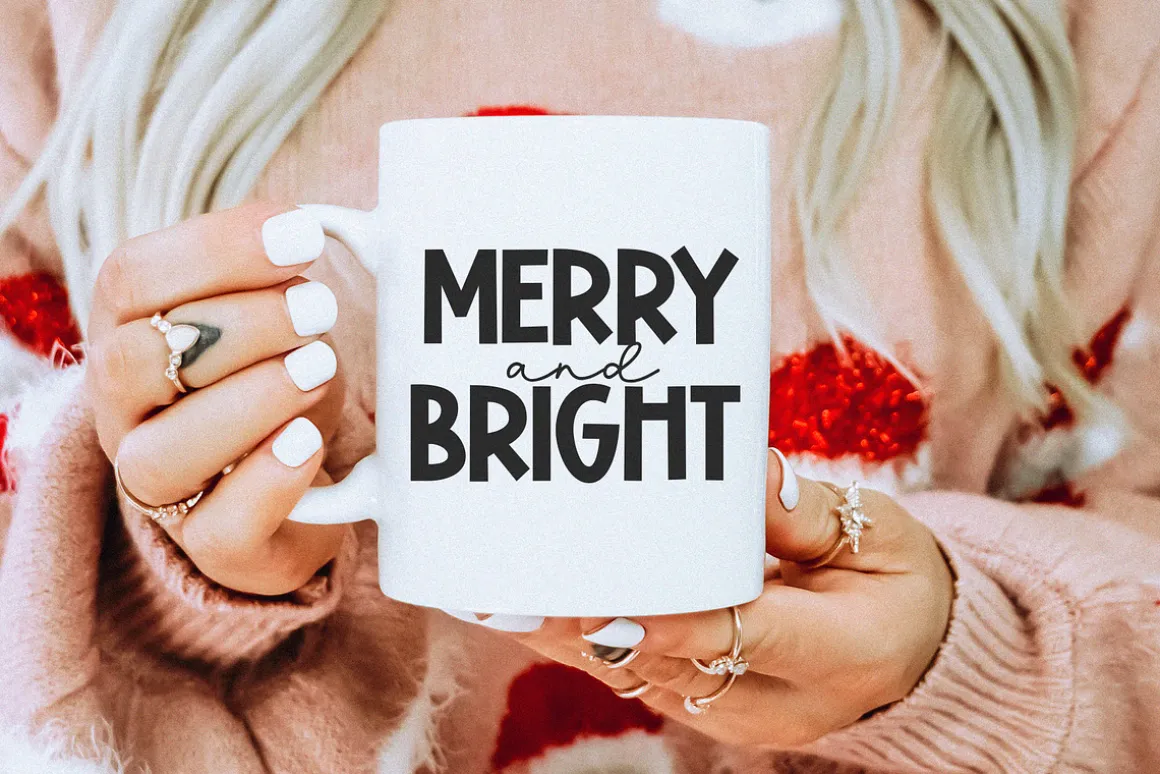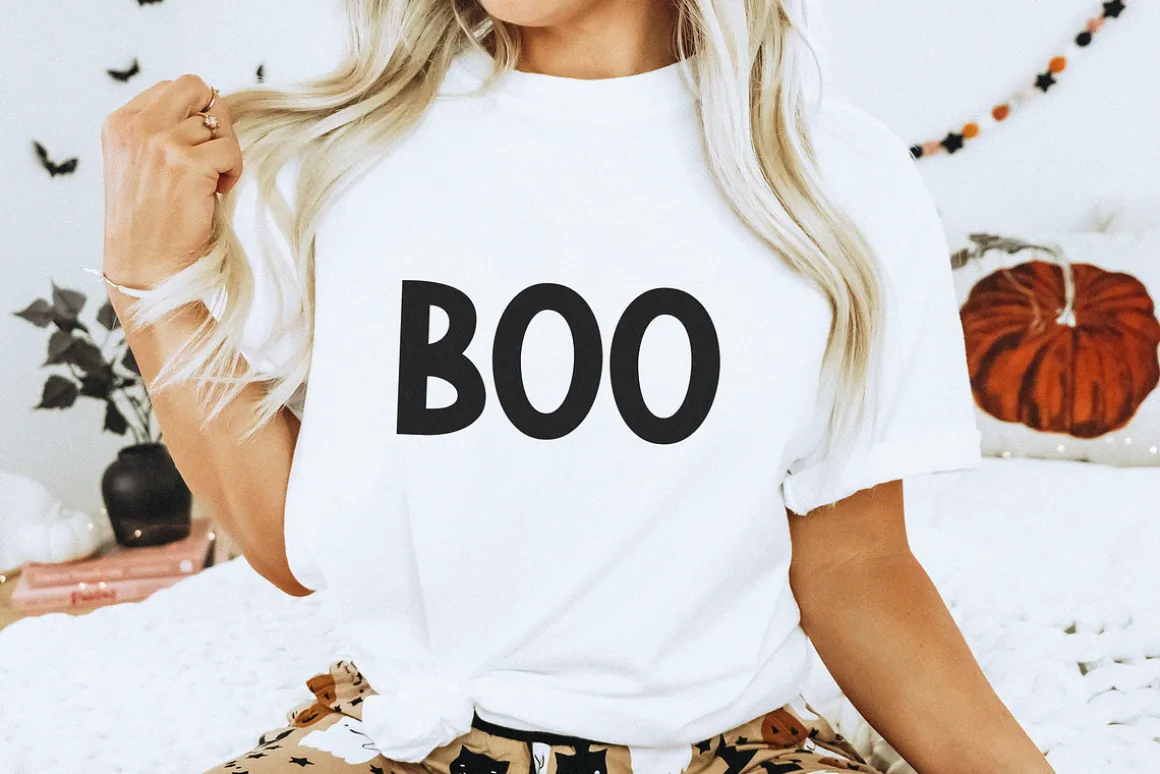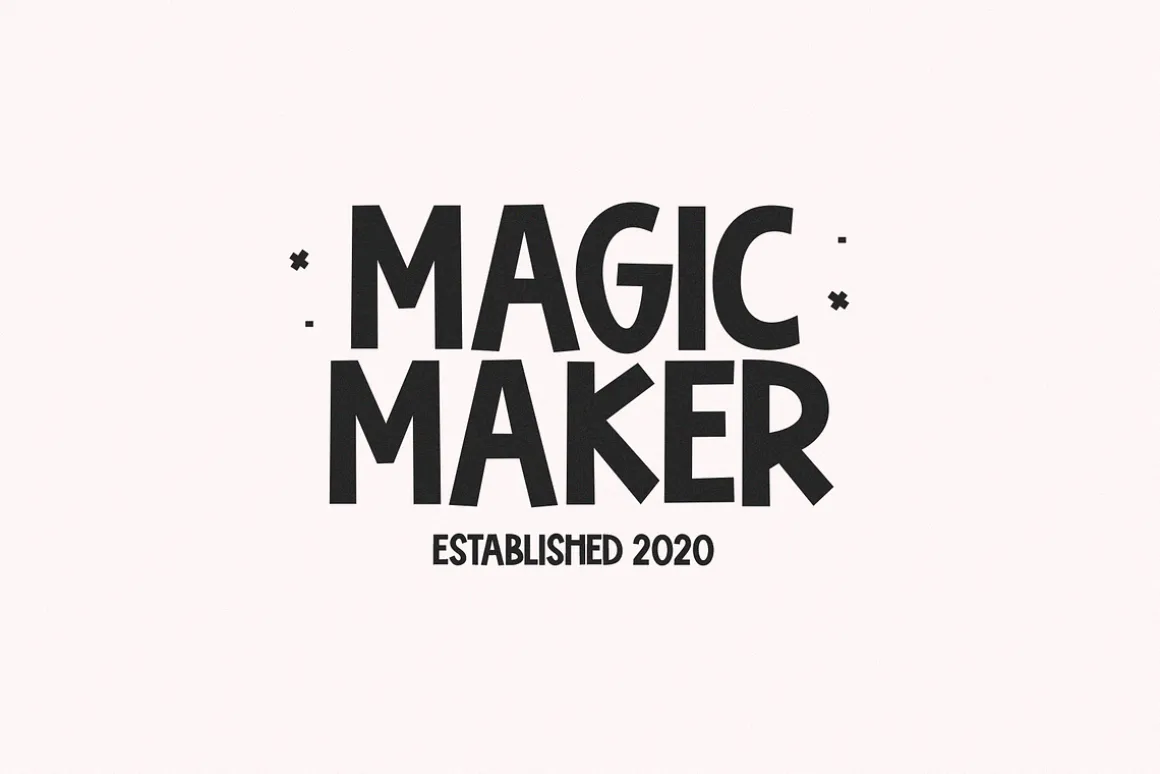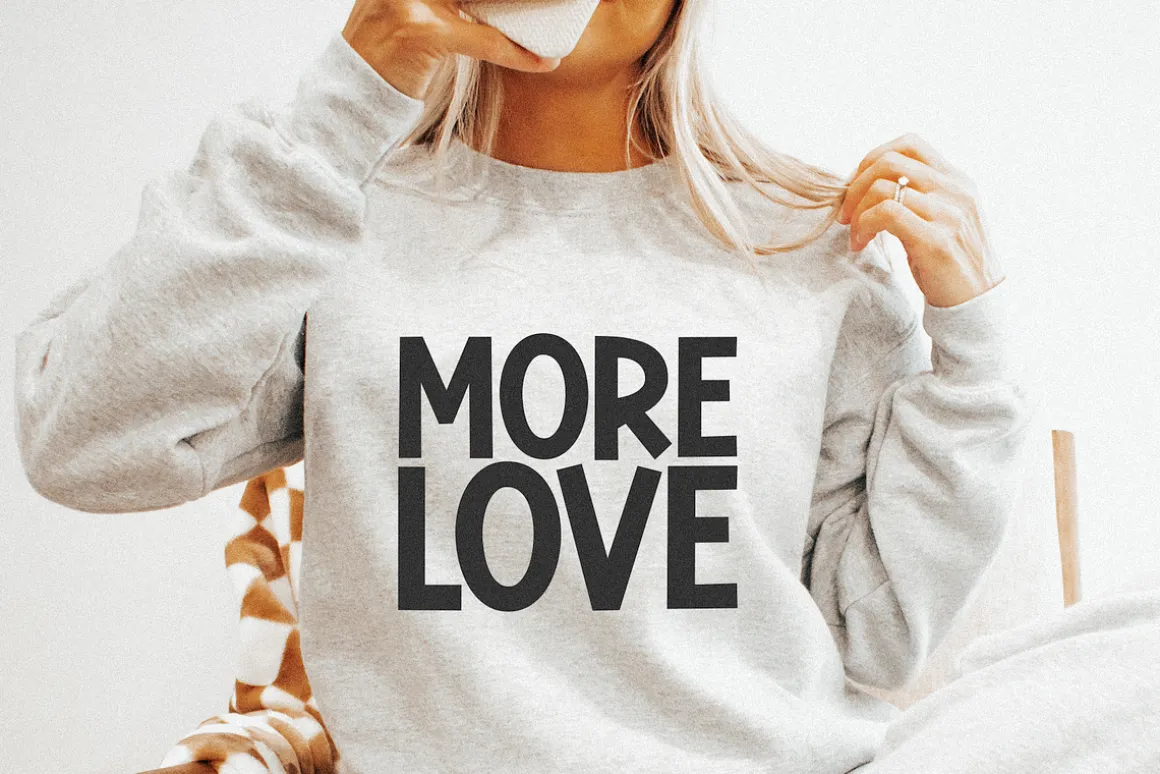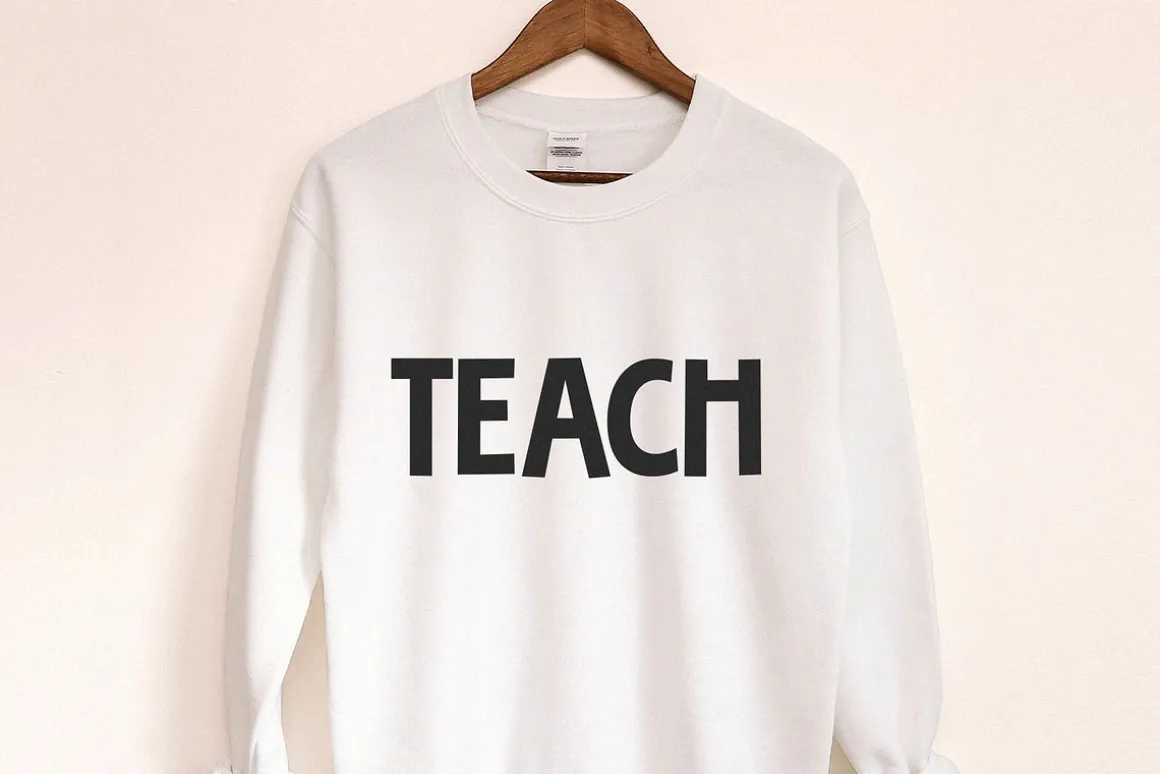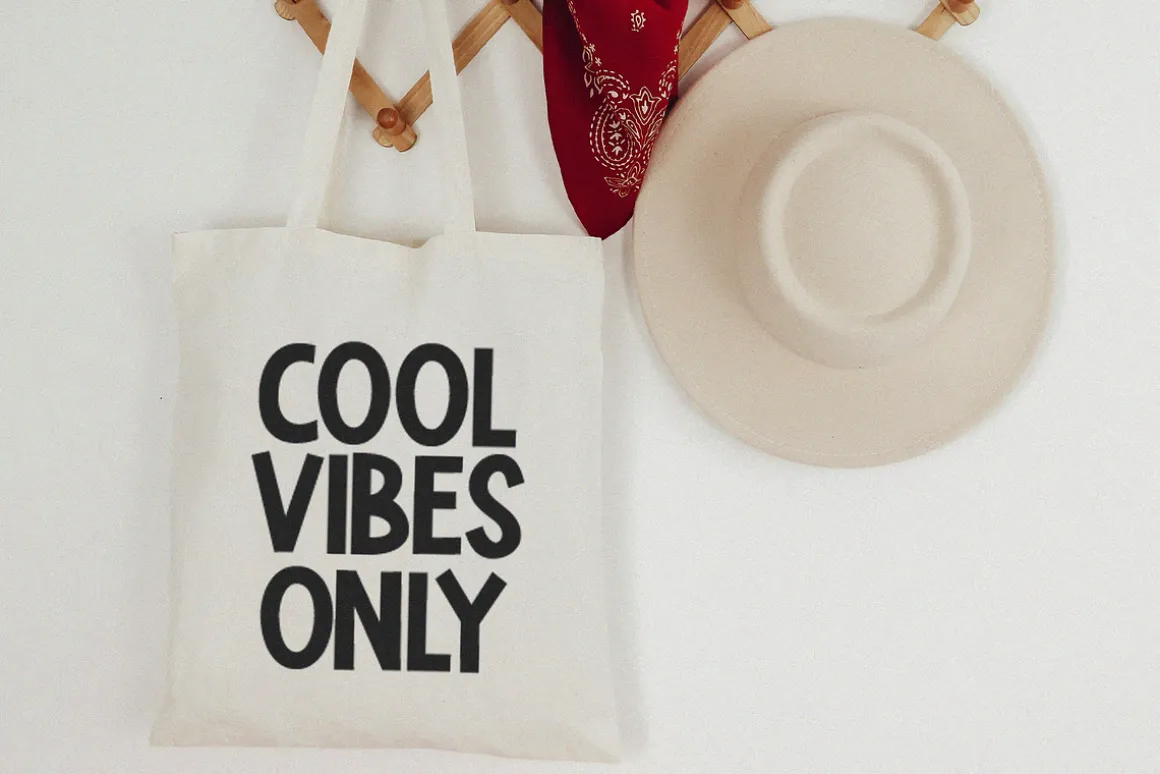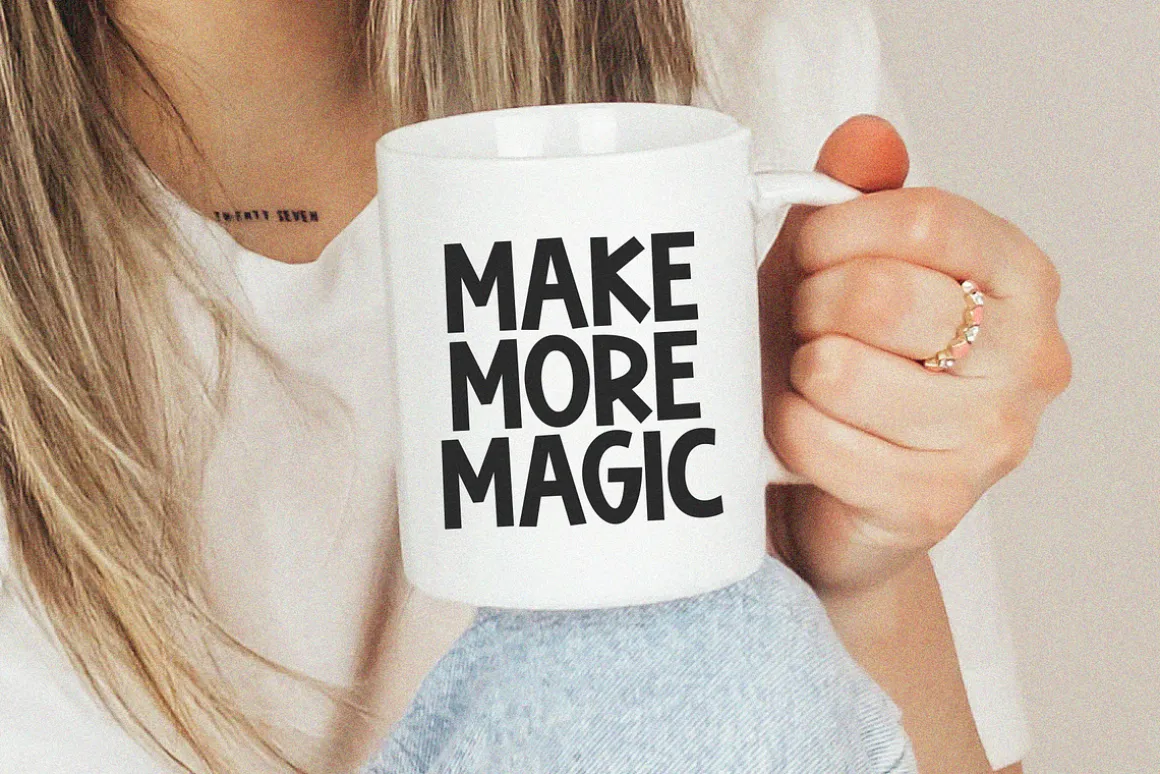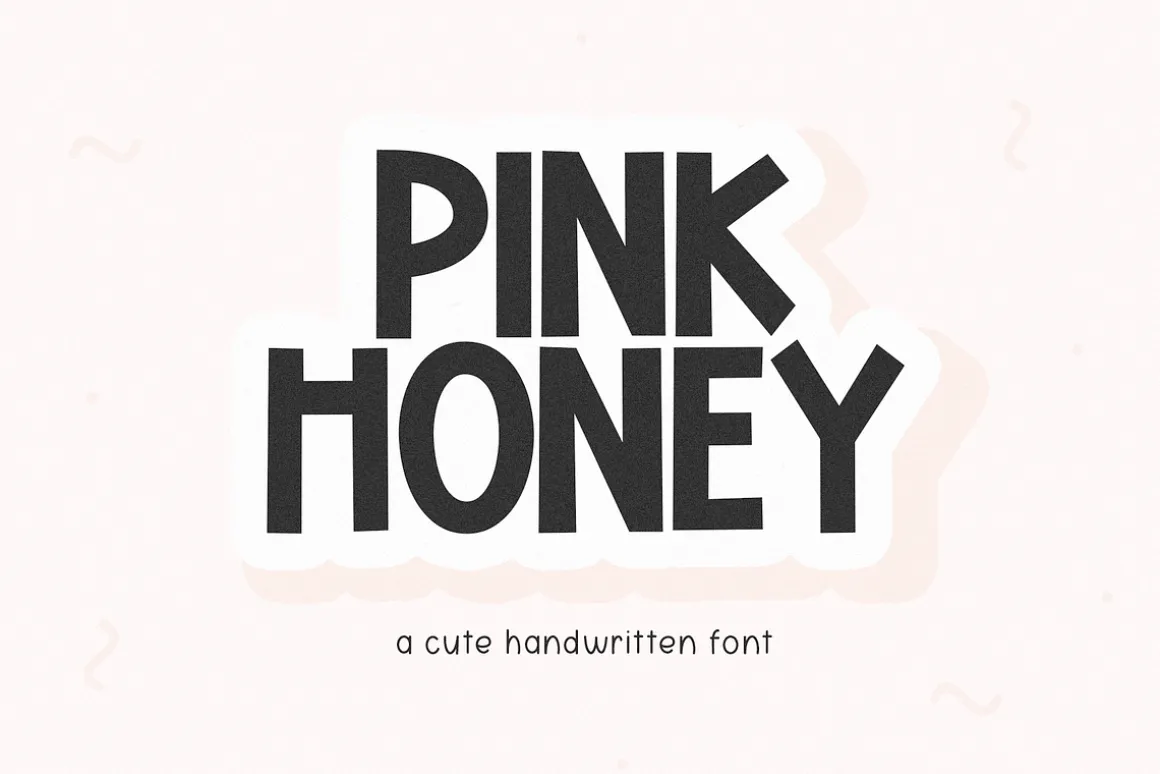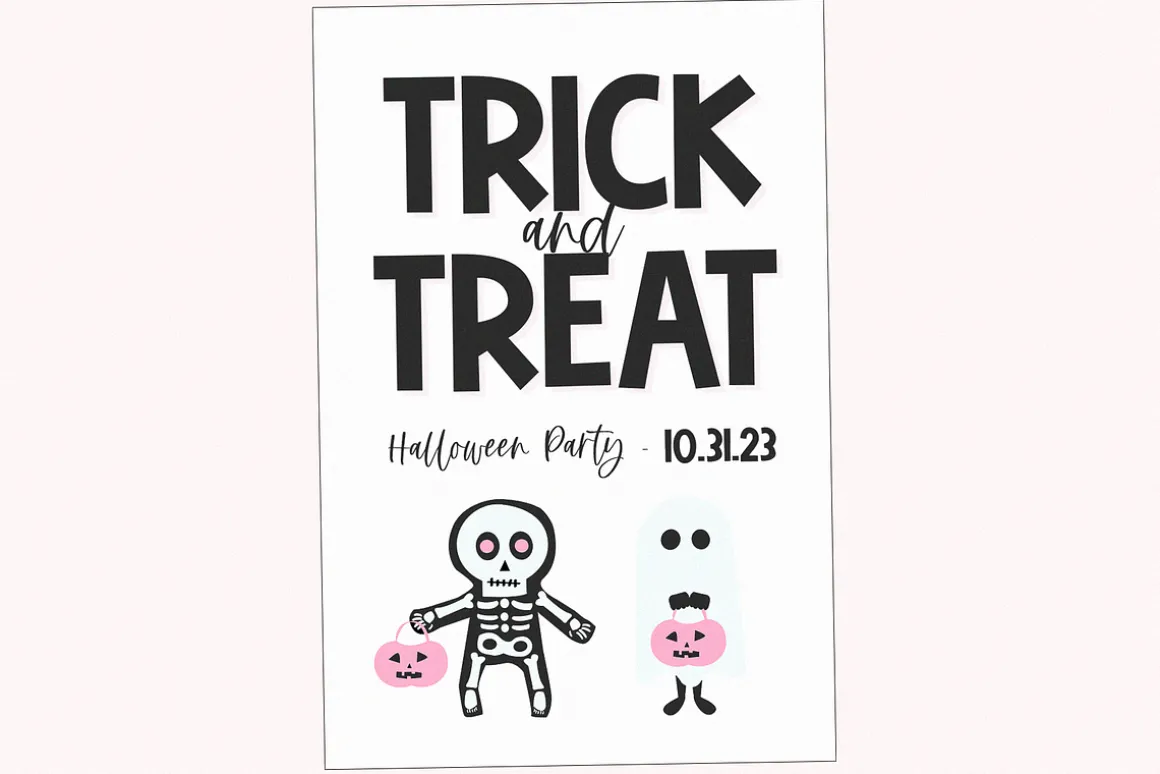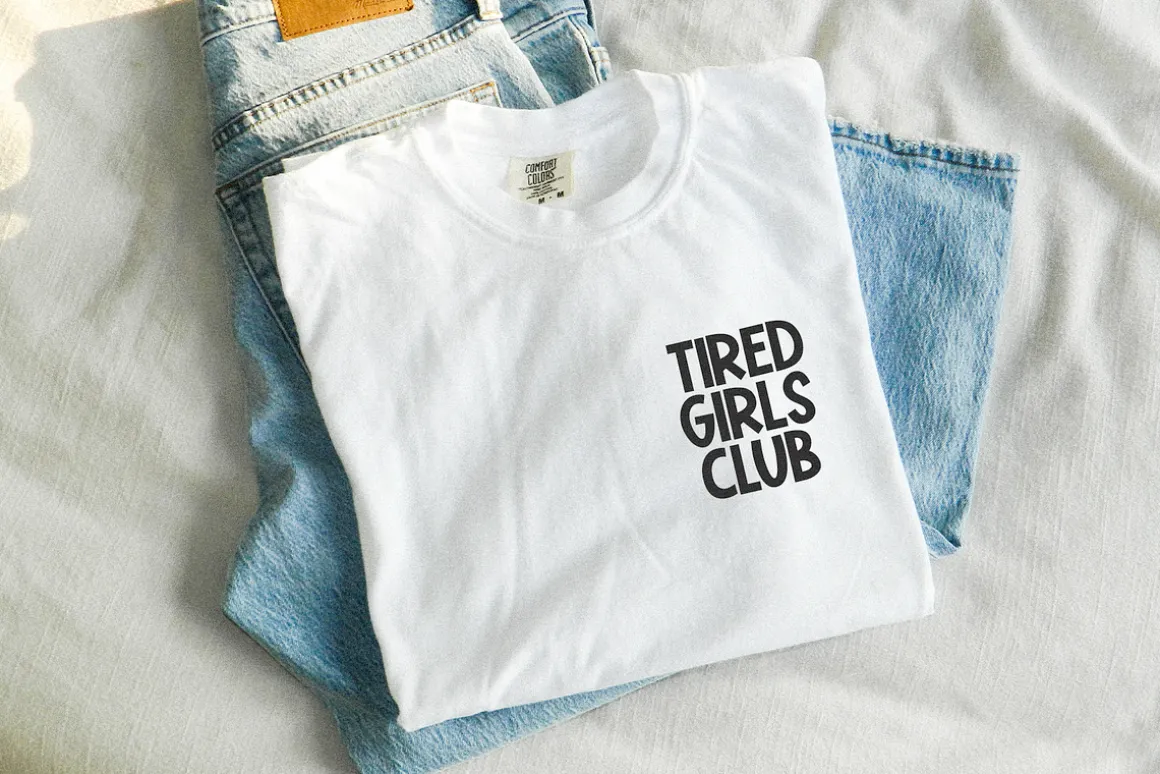
Pink Honey is a fun handwritten font!
This font is perfect for svg files, logos, shirts, quotes, social media, craft projects, mugs, doormats, stickers and more!
Pink Honey is a fun handwritten font!
This font is perfect for svg files, logos, shirts, quotes, social media, craft projects, mugs, doormats, stickers and more!